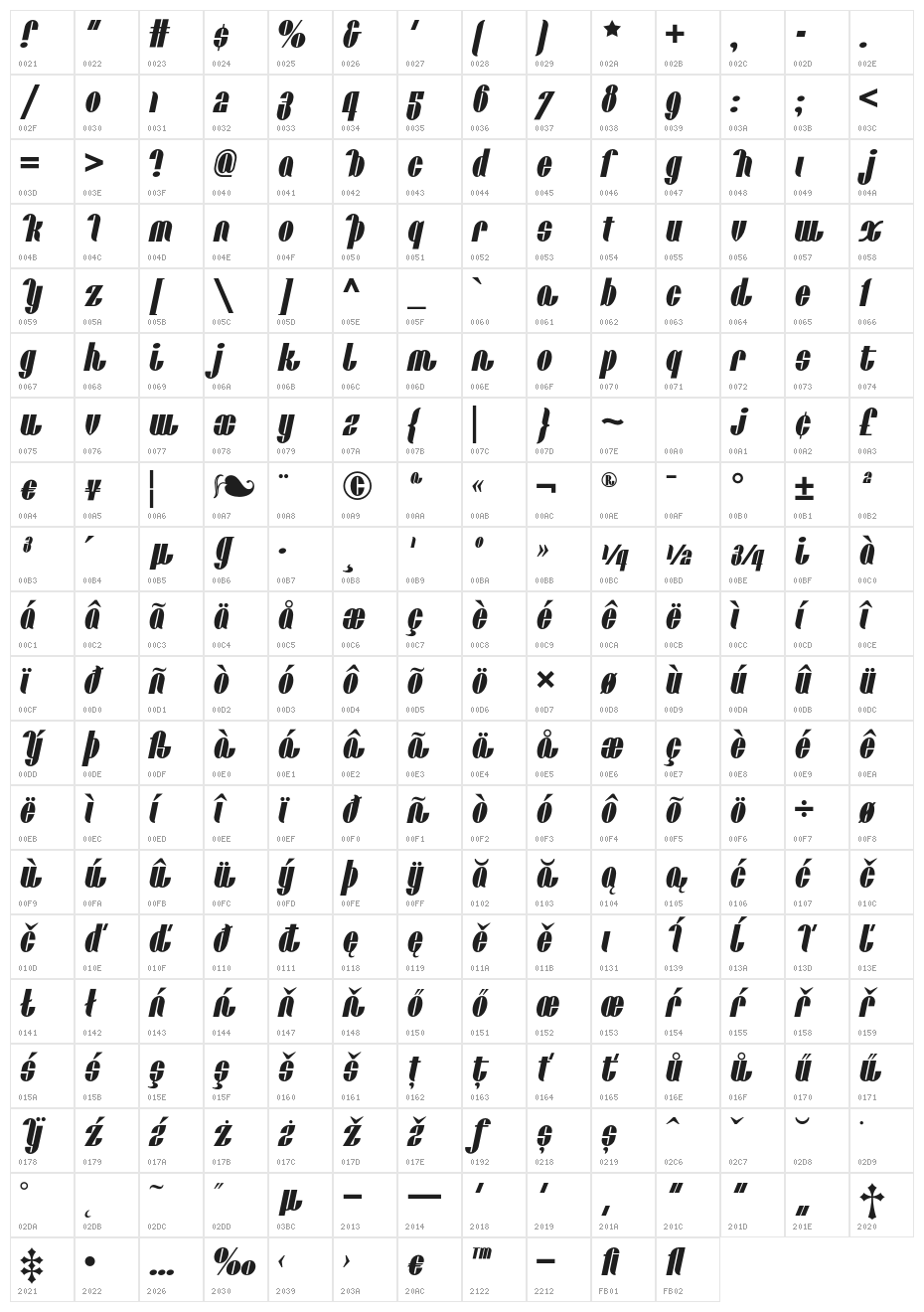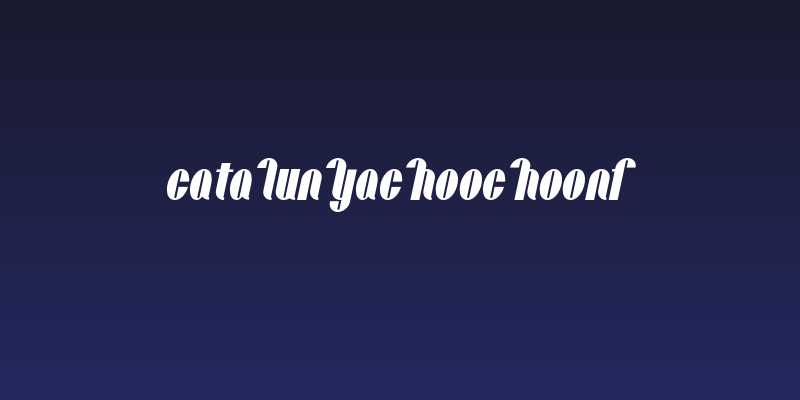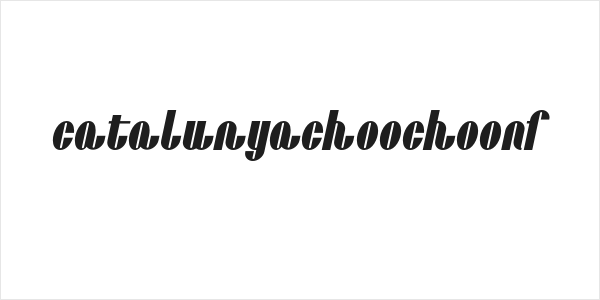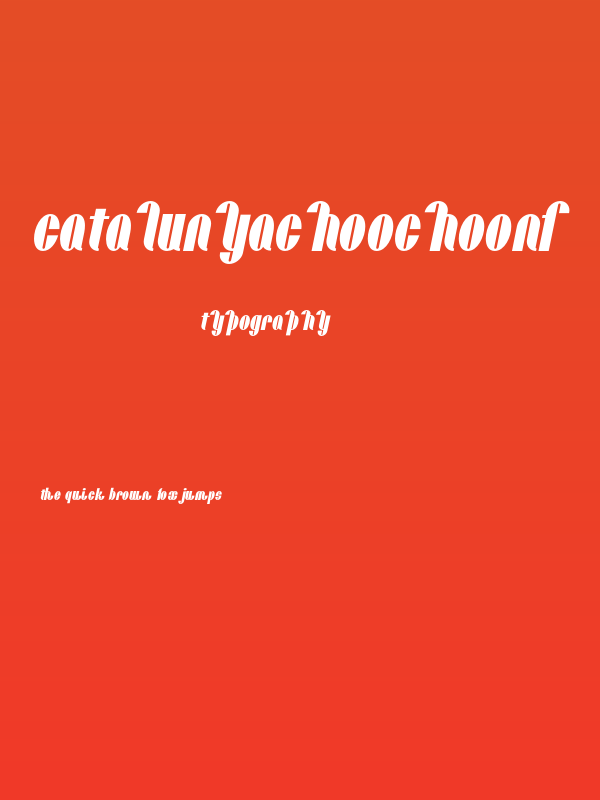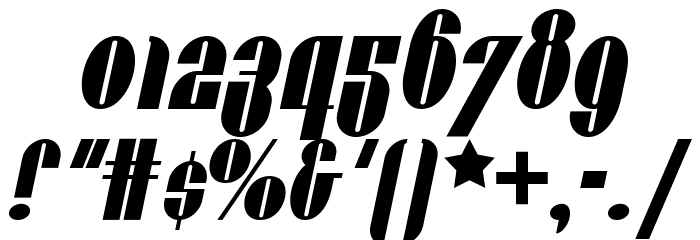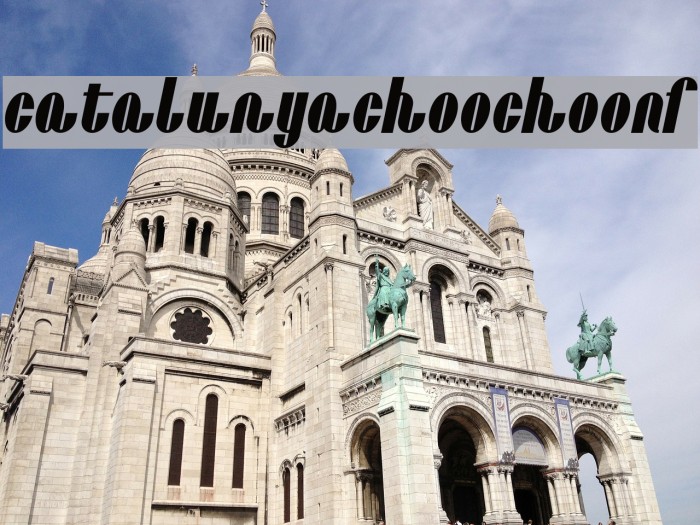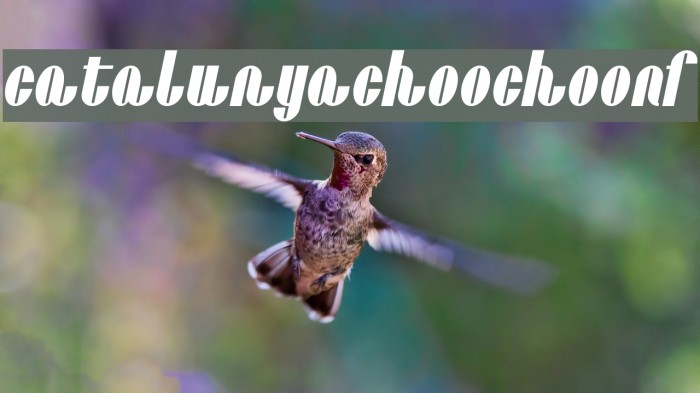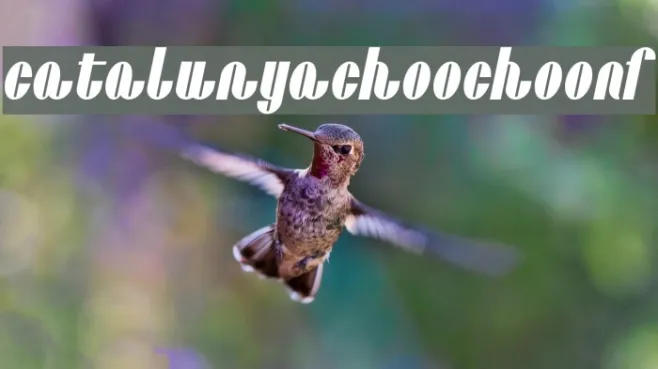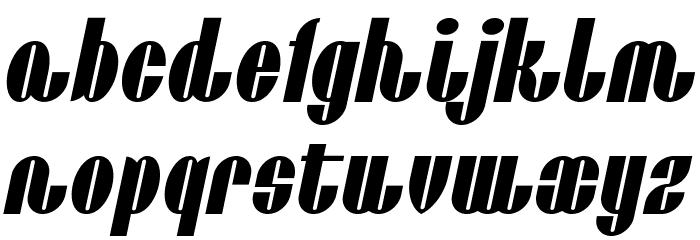
CatalunyaChooChooNF Font
CatalunyaChooChooNF Description
This font features a bold and dynamic style with a strong presence. The characters exhibit a unique blend of modern and vintage elements, characterized by thick, sweeping strokes and a slight slant that gives it a sense of motion and energy. The uppercase and lowercase letters maintain a consistent style, with rounded edges and a playful yet sophisticated flair. The numerals and special characters are equally bold, ensuring readability and impact. This font is ideal for creating eye-catching designs that require a touch of elegance and boldness.
| Overall Style | Modern, Vintage |
| Proposed Projects | Ideal for branding, poster design, headlines, and any project requiring a bold, stylish impact. |